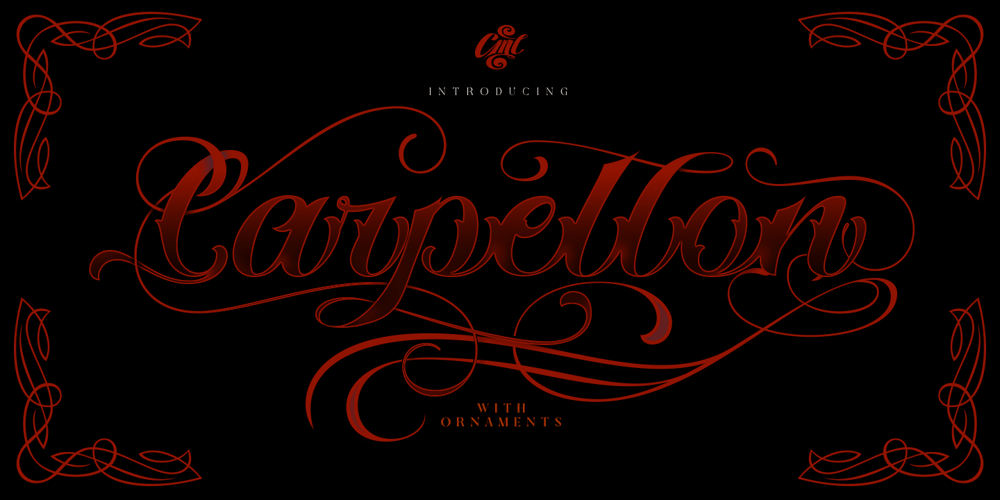
Carpellon Font Family was designed by Kadek Mahardika and published by Creativemedialab. Carpellon contains 2 styles and family package options. Carpellon is inspired by tattoo scripts, and features nice curves to represent the combination of art and beauty. It is unique and easy to read, and includes both regular and ornament styles. It is best for use with gothic art themes, tattoo lettering, posters, logos and more.